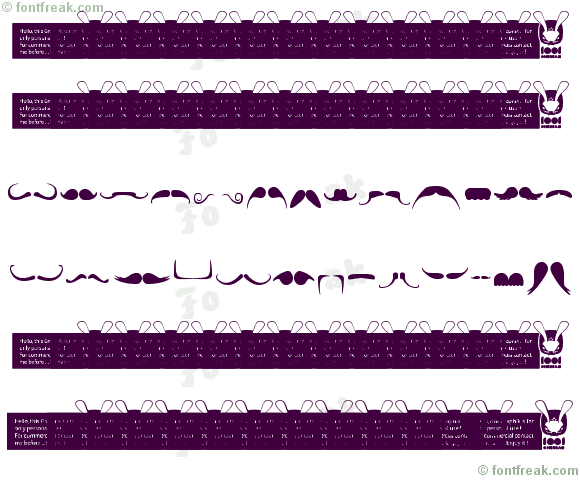
mustache
The Mustache font by Maelle.K is a playful and whimsical display typeface, ideal for creative projects that require a touch of personality. This font features a unique blend of bold strokes and light embellishments, capturing a decorative essence that makes it stand out. The letters are characterized by their fluid forms and charming curves, often resembling the iconic shape of mustaches, which adds an element of fun and flair to any design. The spacing between characters is thoughtfully designed to enhance readability while maintaining an engaging visual flow.
This versatile font is perfect for a variety of applications. It shines in wedding invitations, where its lighthearted nature can convey joy and celebration. For movie posters, the Mustache font can add a quirky touch, making it suitable for comedies or family films. Restaurant menus can also benefit from its unique style, creating an inviting atmosphere that draws in diners. Additionally, this font is excellent for branding projects, especially for small businesses looking to establish a memorable identity.
Targeting graphic designers, small business owners, and content creators, the Mustache font caters to those who wish to infuse their work with a sense of creativity and fun. Its free availability makes it accessible for anyone looking to enhance their designs without breaking the bank.
In conclusion, the Mustache font stands out not only for its distinctive visual appeal but also for its versatility across various design applications. Its playful character and unique styling make it a fantastic choice for anyone seeking a font that captures attention and sparks joy. Be sure to explore the mustache font free download to elevate your creative projects today.